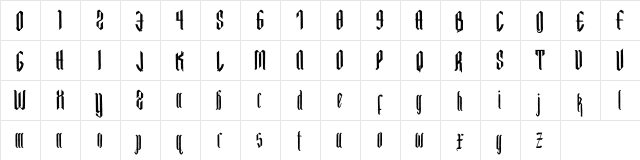
RUMASA Cond Regular
| Designer | Randi Ilhamsyah |
Design Context for RUMASA Cond Typeface
RUMASA Cond is a composed and adaptable typeface that performs quietly and consistently across a wide range of design contexts. The condensed width makes it efficient for tight spaces without sacrificing legibility.